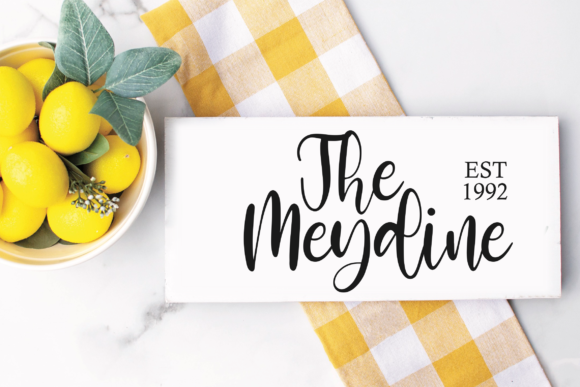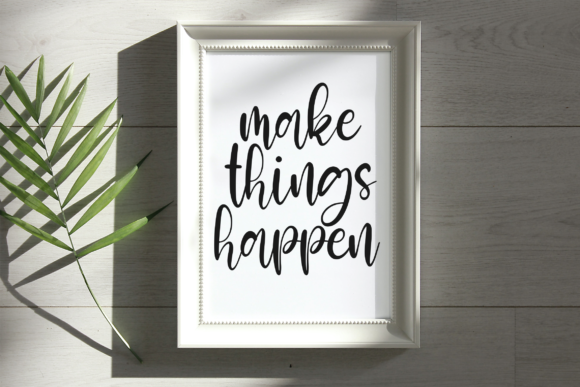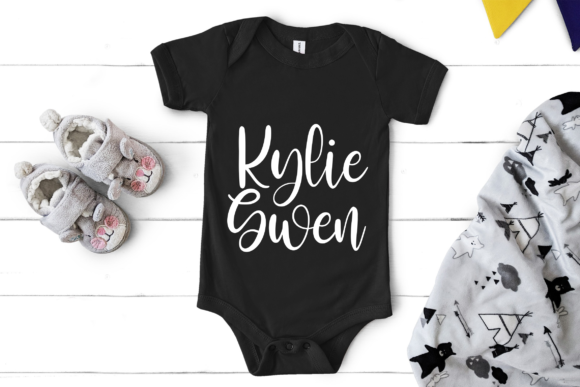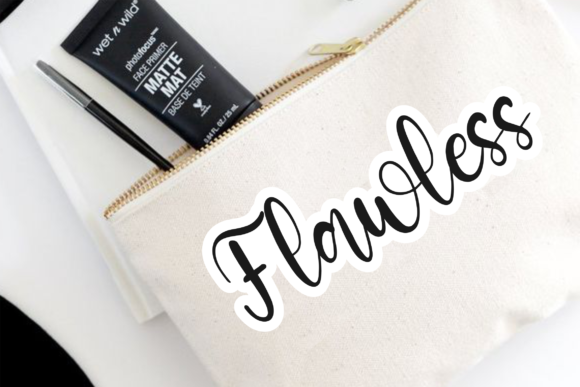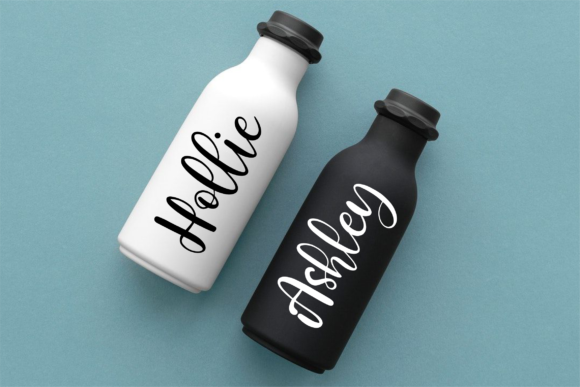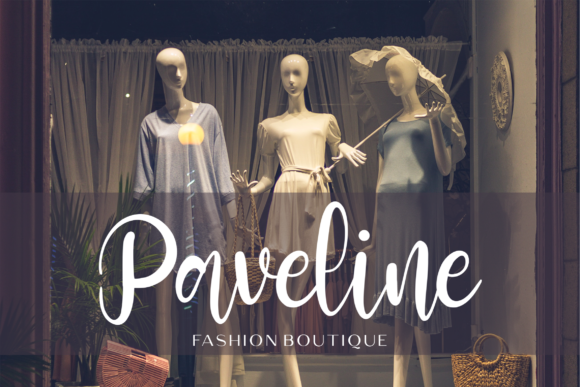
The Elegant Fancywel Font: A Designer’s New Best Friend
I’ll never forget the time I was working on a wedding invitation project, and my client asked for a font that was “elegant, yet playful.” I scoured the internet, trying out font after font, but nothing seemed quite right. That was until I stumbled upon Fancywel Font. This lovely script font has been a game-changer for my designs, and I’m excited to share it with you.
An Honest Review of Fancywel Font
- ✨ Elegant and refined: Fancywel Font exudes class and sophistication, making it perfect for high-end designs.
- ✅ Delicate and intricate: The font’s intricate details and swashes add a touch of whimsy and romance to any design.
- 💫 Versatile: Fancywel Font works beautifully for a variety of design projects, from wedding invitations to branding and packaging.
While Fancywel Font is an amazing addition to any design project, there are a few things to keep in mind:
- ⚠️ Limited use in body text: Due to its script nature, Fancywel Font can be difficult to read in large blocks of text. It’s best used for headings, titles, or short paragraphs.
- 🤔 Limited character set: While Fancywel Font has a wide range of characters, it may not have every special character or glyph you need. Be sure to check the font’s capabilities before committing to a project.
The Story Behind Fancywel Font
Fancywel Font was created by a team of designers who wanted to craft a font that was both elegant and playful. Inspired by traditional calligraphy and script fonts, Fancywel Font was designed to add a touch of whimsy and romance to any design. The font’s intricate details and swashes make it perfect for designs that need a bit of extra flair.
Q: What type of designs is Fancywel Font best suited for?
A: Fancywel Font is perfect for designs that need a touch of elegance and sophistication, such as wedding invitations, branding, and packaging.
Q: Does Fancywel Font come with OpenType features?
A: Yes, Fancywel Font includes OpenType features, such as swashes, stylistic alternates, and glyphs.